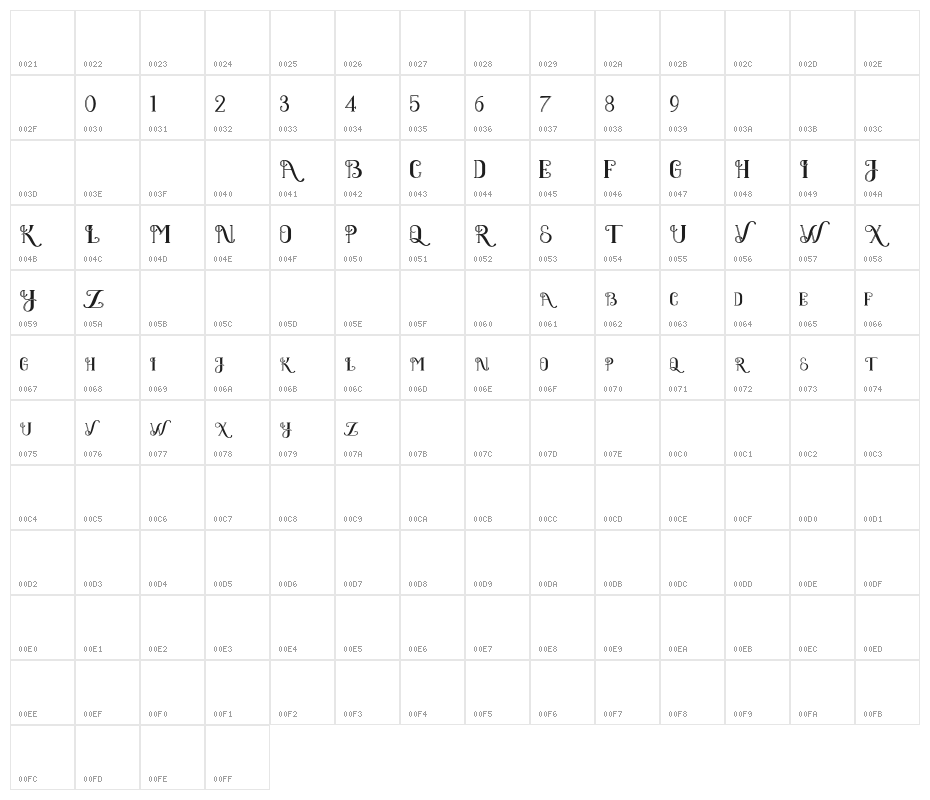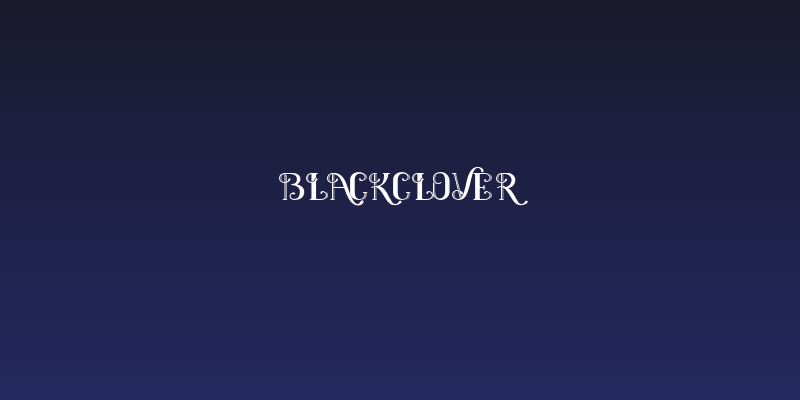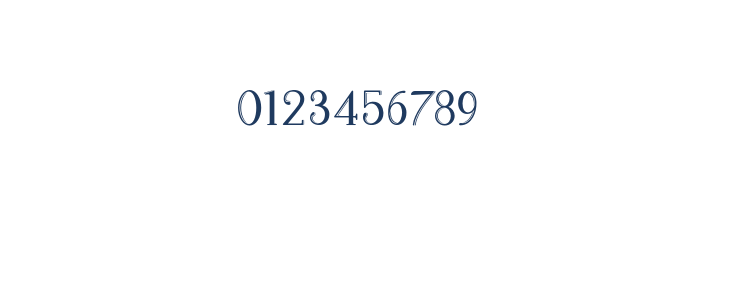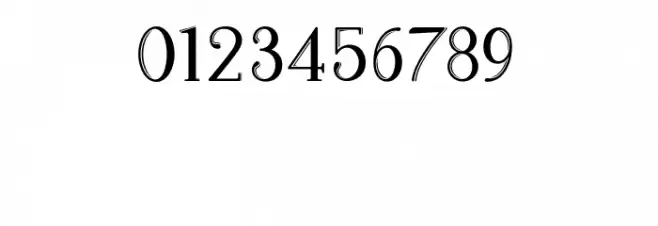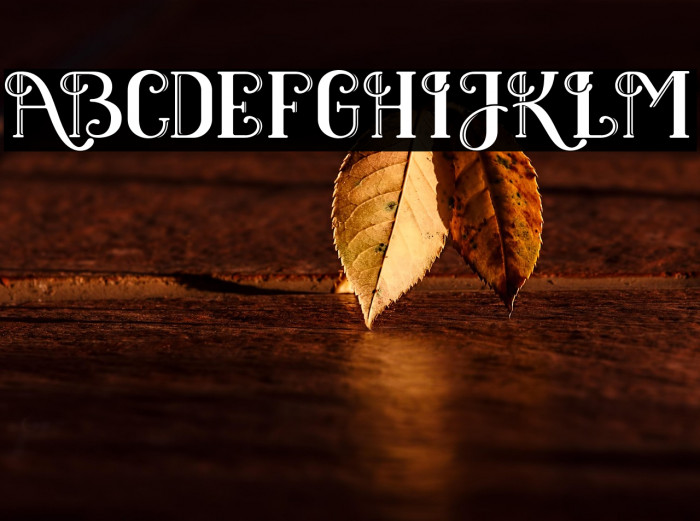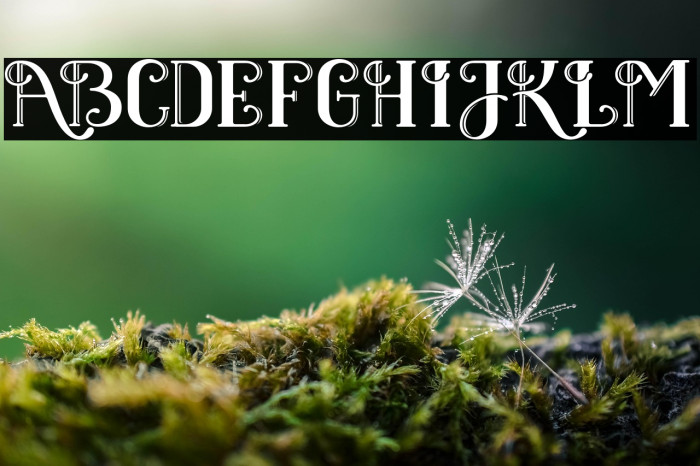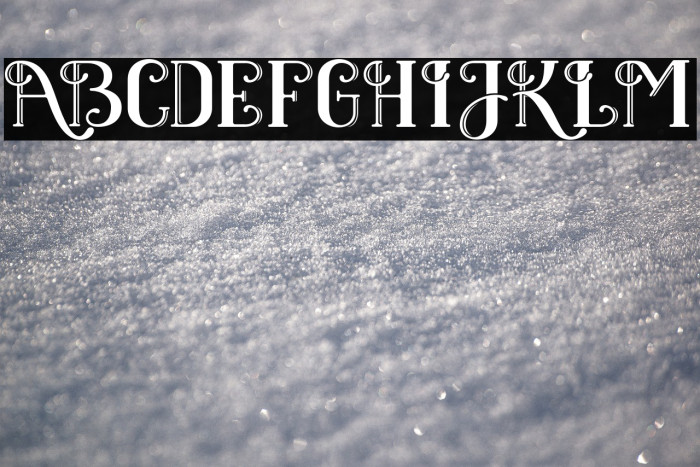
BlackClover Font
BlackClover Description
This font features a decorative and ornate style, characterized by intricate swirls and flourishes that extend from the main strokes of each letter. The uppercase letters are particularly elaborate, with bold, thick lines that contrast with the delicate, thin embellishments. The lowercase letters maintain a similar aesthetic, though they are slightly more restrained in their ornamentation. The numerals are consistent with the overall style, offering a blend of boldness and decorative elements. This font is designed to capture attention and convey a sense of elegance and sophistication, making it ideal for projects that require a touch of luxury and artistic flair.
| Proposed Projects | Ideal for wedding invitations, luxury branding, high-end product packaging, and artistic posters. |